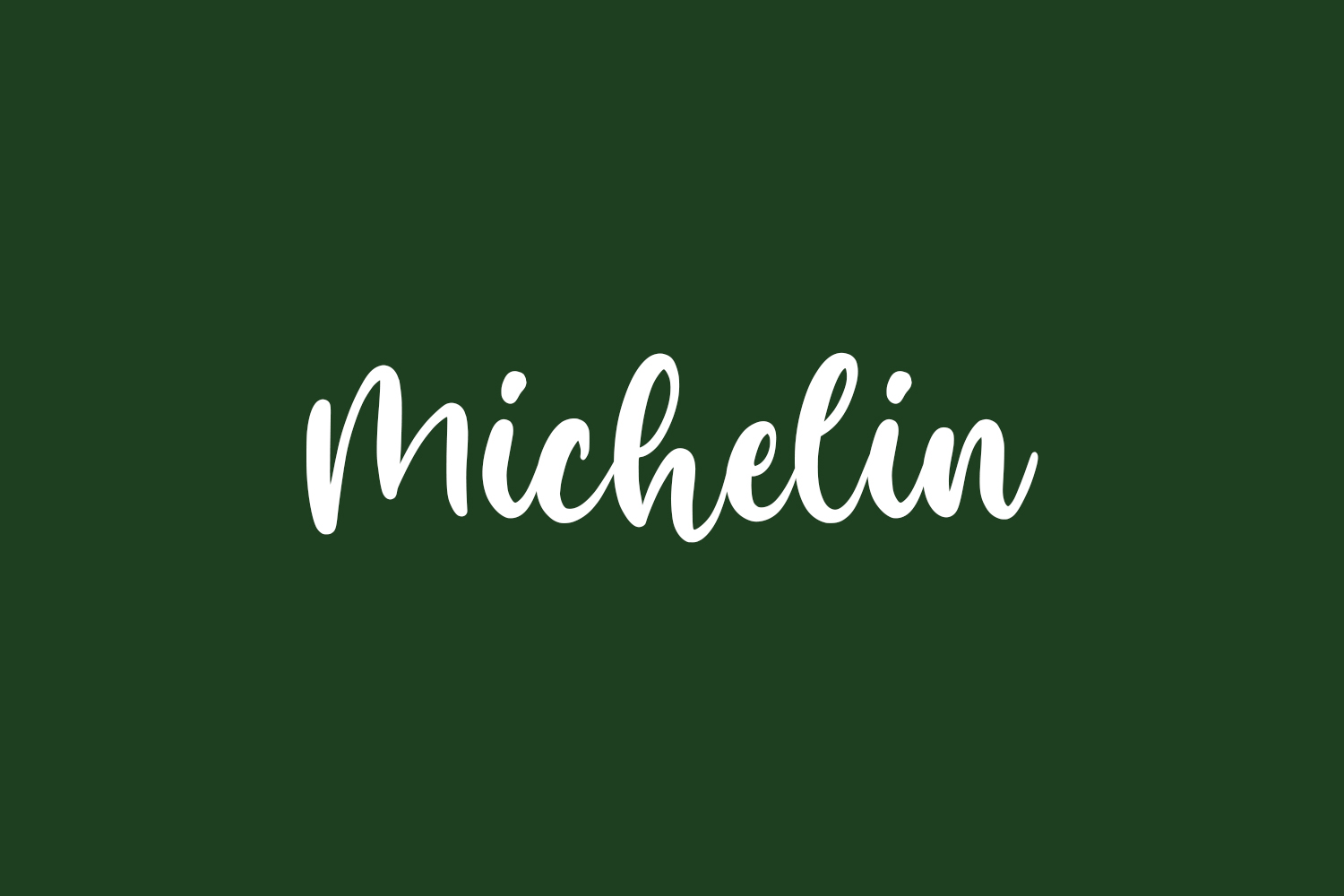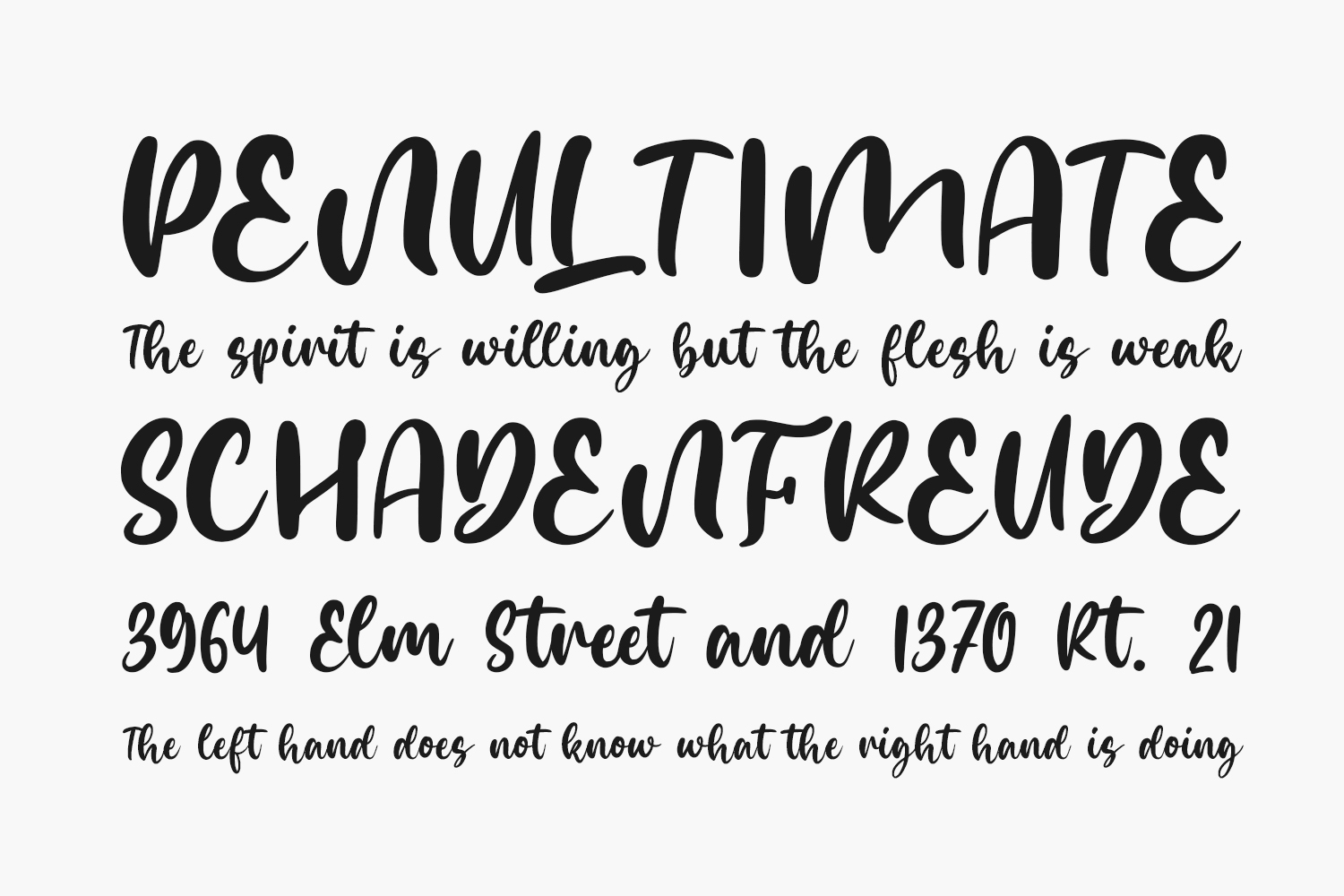
Michelin Free Font is a beautiful and delicate script font. It has a classy and modern look, which can be used for logos, branding, invitations, stationery, wedding designs, social media posts, and any other design that requires a personalized touch. Michelin Free Font was designed by NanaNissa and is free for personal use only. Please purchase the full version for commercial use.